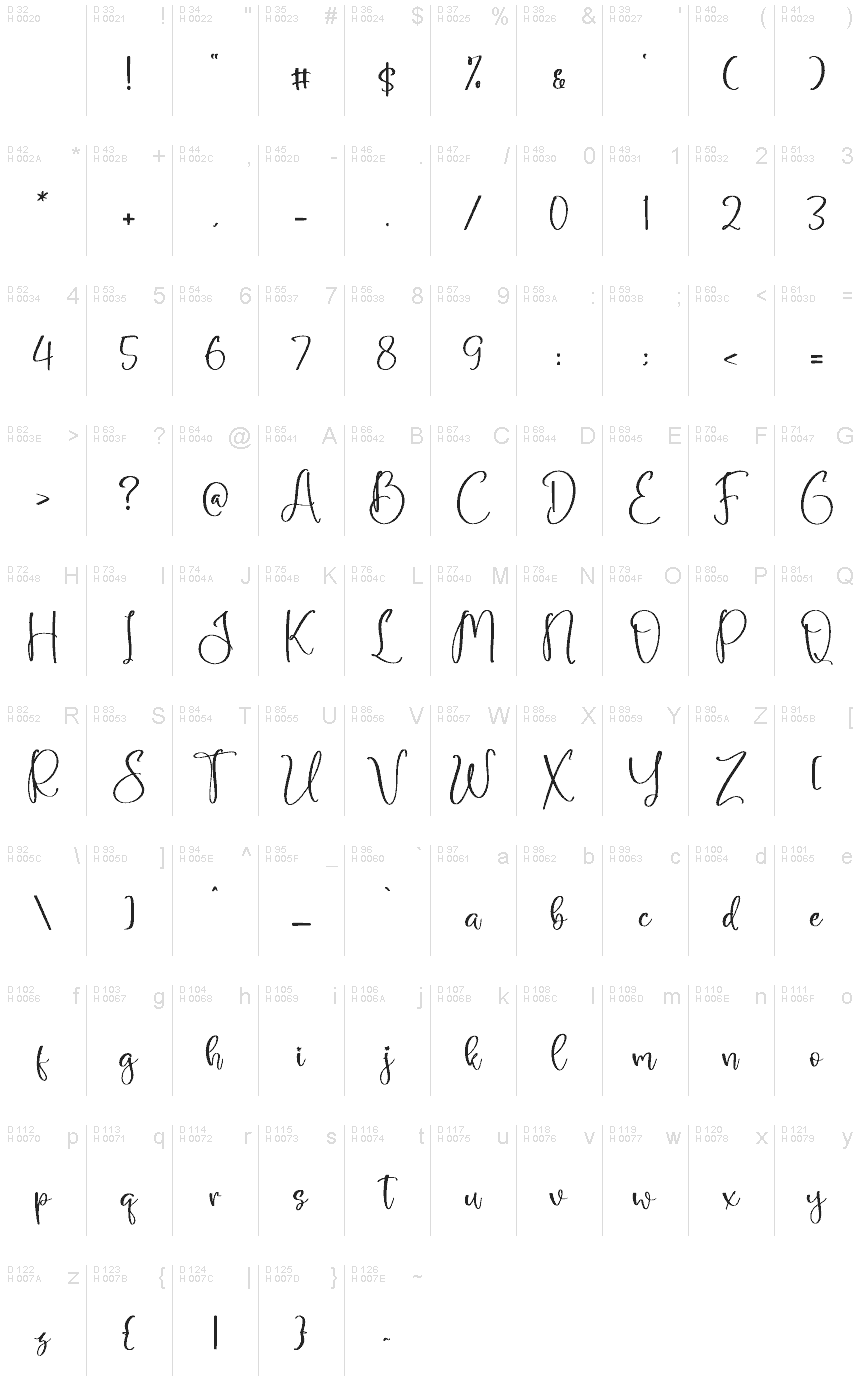
Snow Chirstmas
Snow Christmas font is a handwritten masterpiece by Letterena Studios, capturing the whimsical elegance of the holiday season. With flowing, festive style and decorative elements that bring letters to life, this modern script font beautifully conveys joy and wonder.